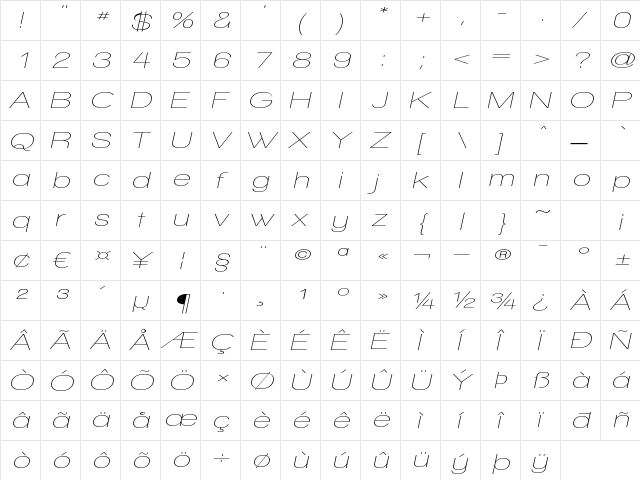
Walkway Oblique Expand Regular
Design Context for Walkway Oblique Expand Typeface
Walkway Oblique Expand takes a measured approach to typography — its balanced proportions and neutral character make it a reliable workhorse for both digital and print work. The dynamic lean of this cut emphasises speed and emphasis in any layout.